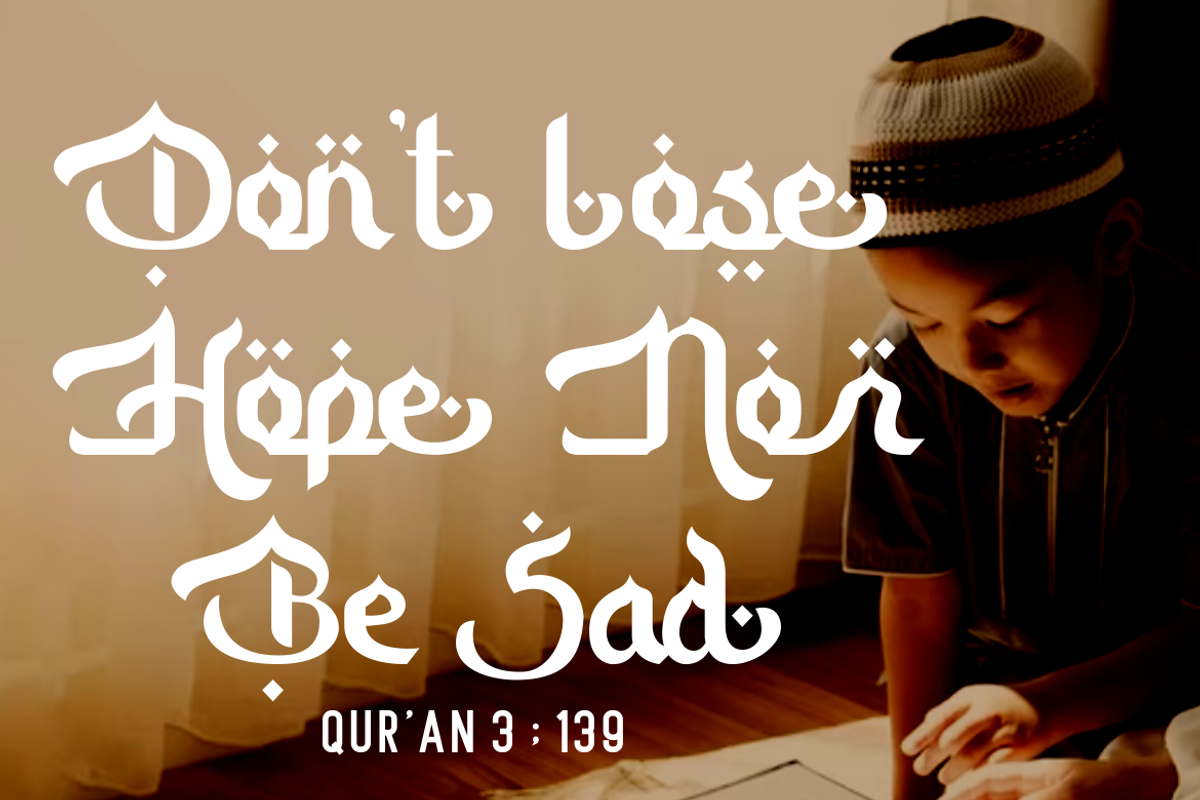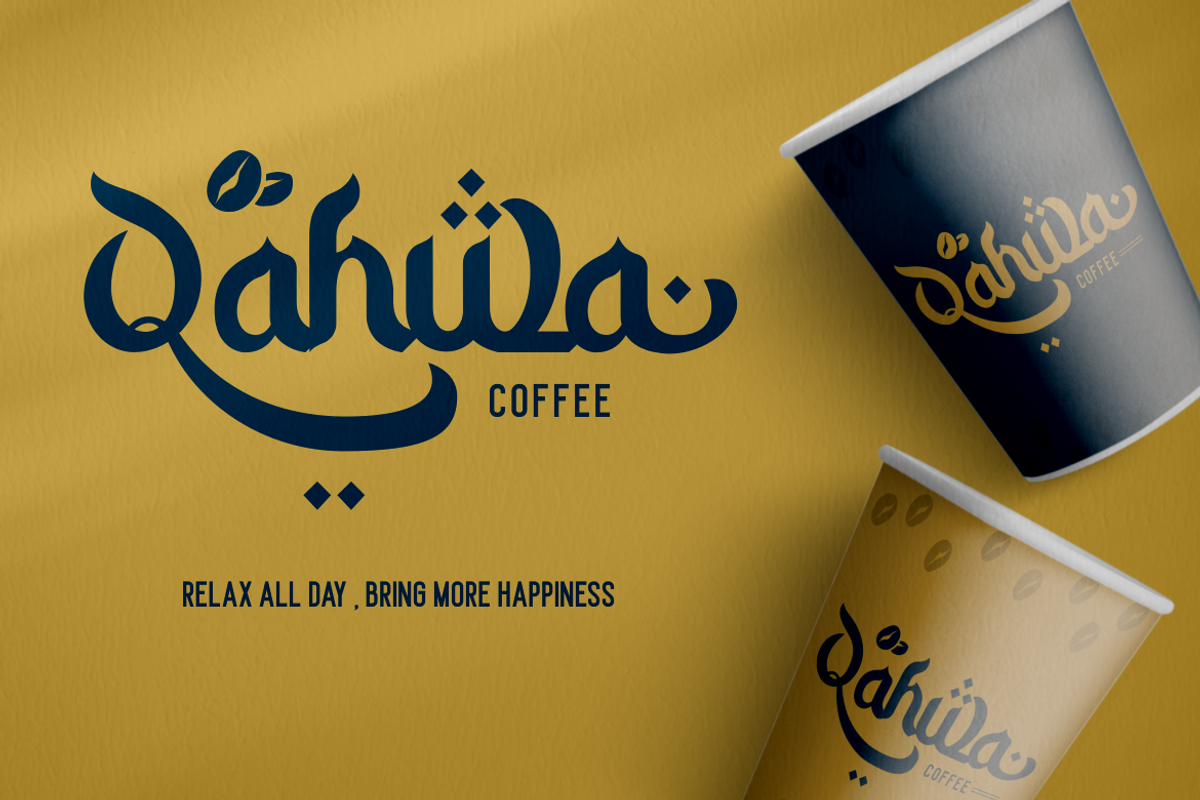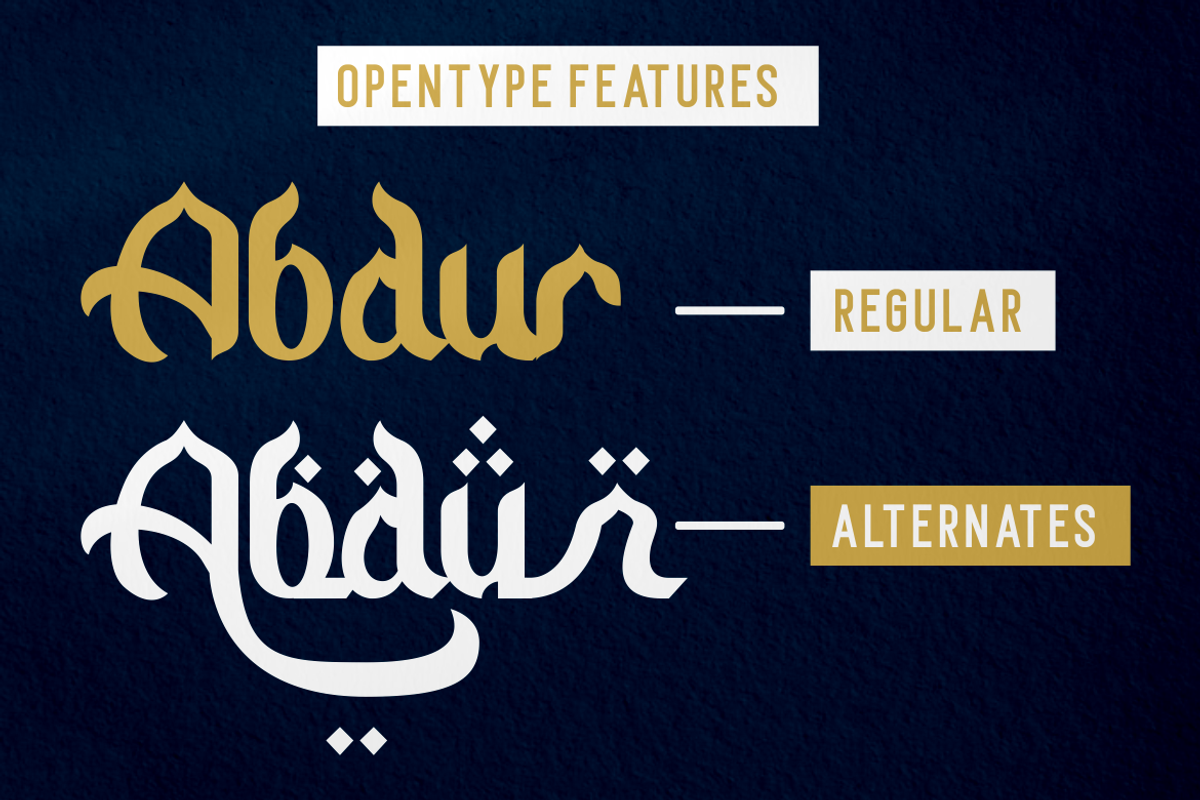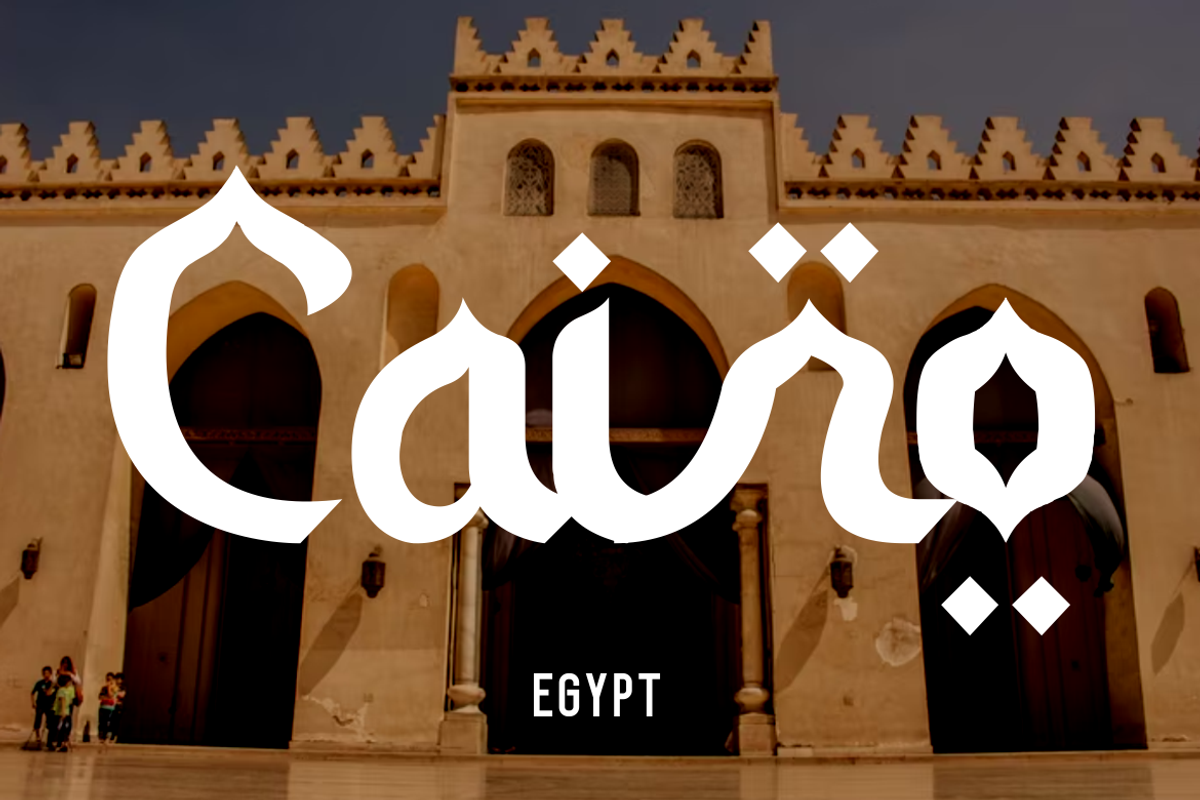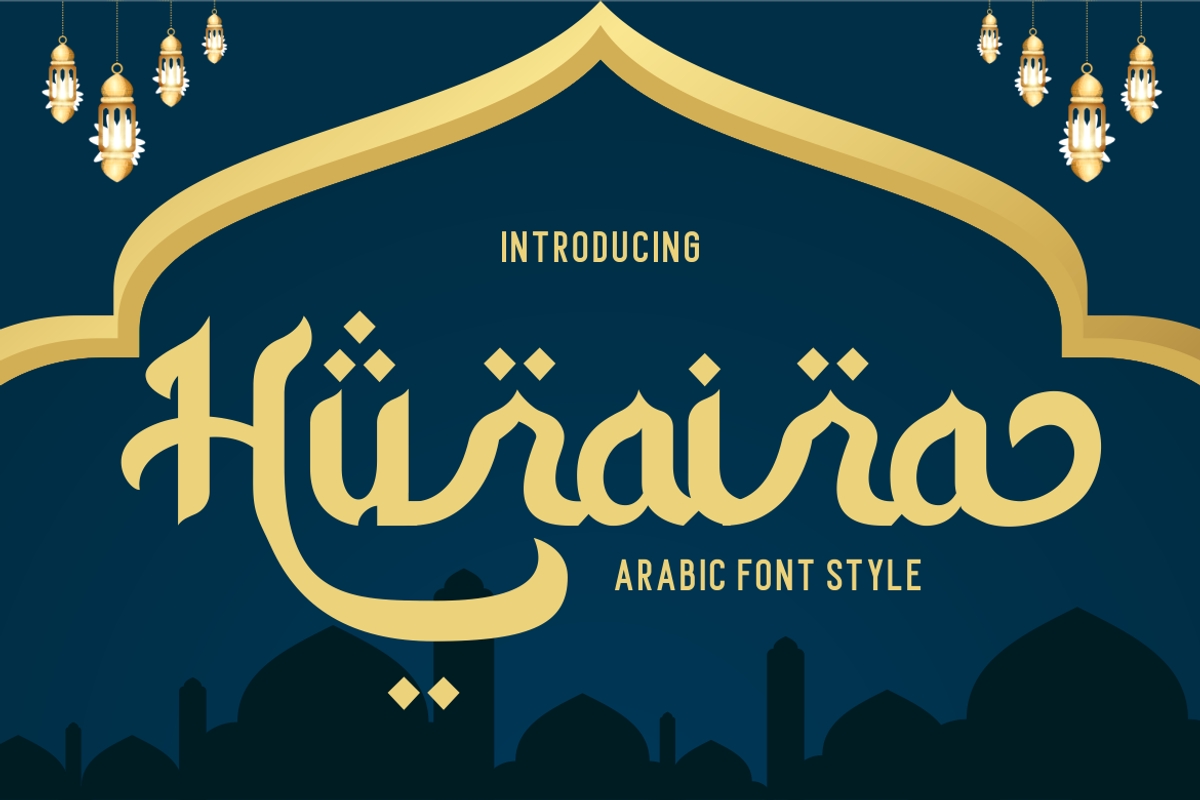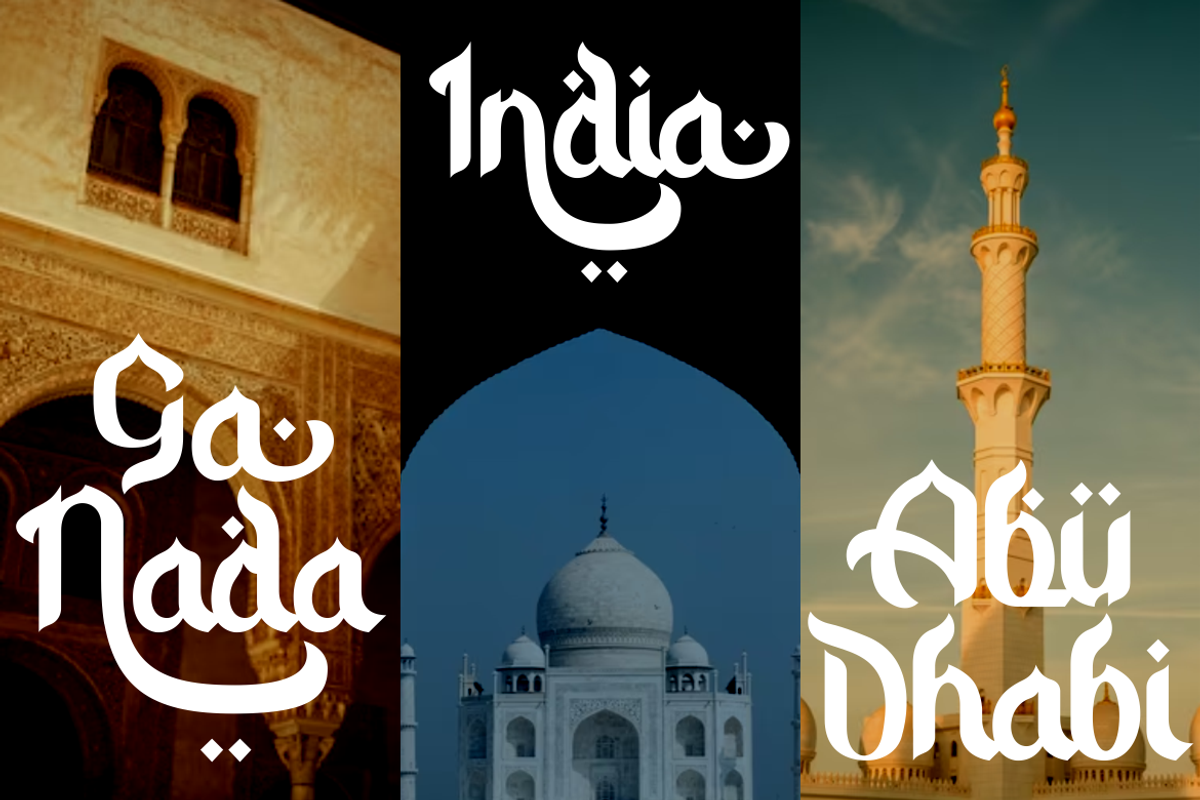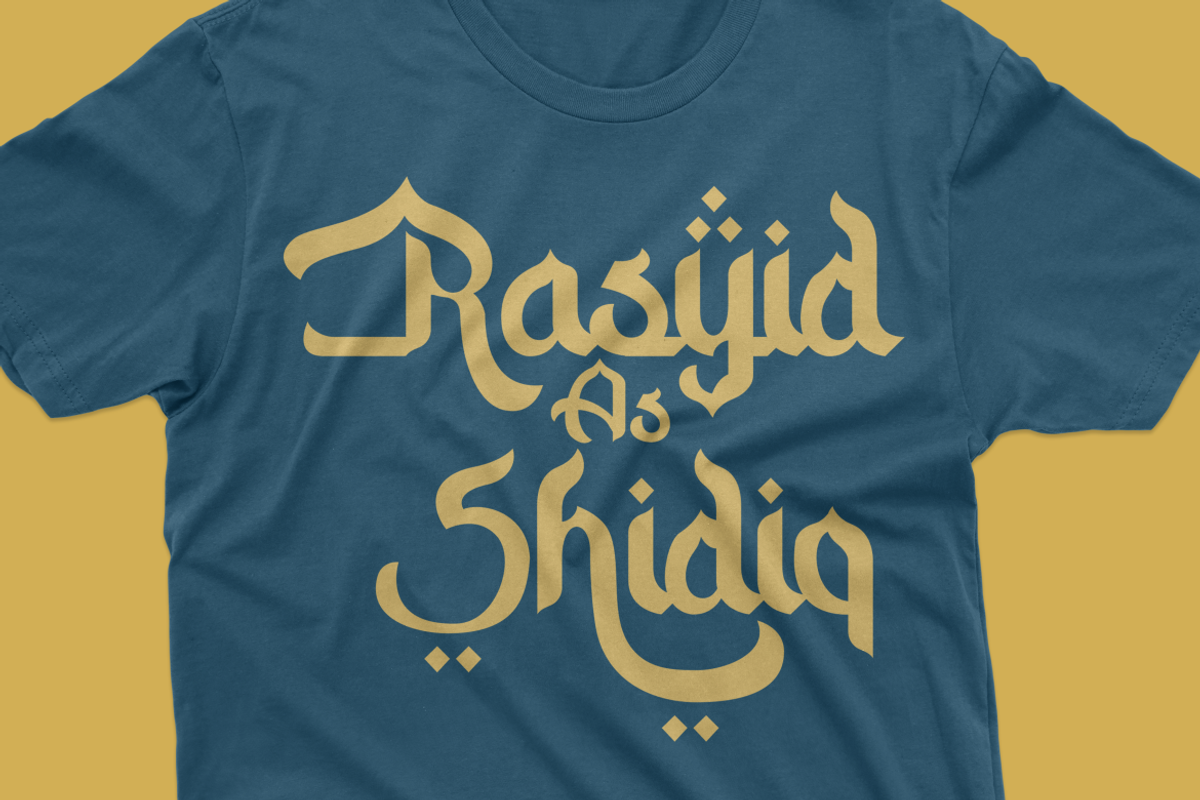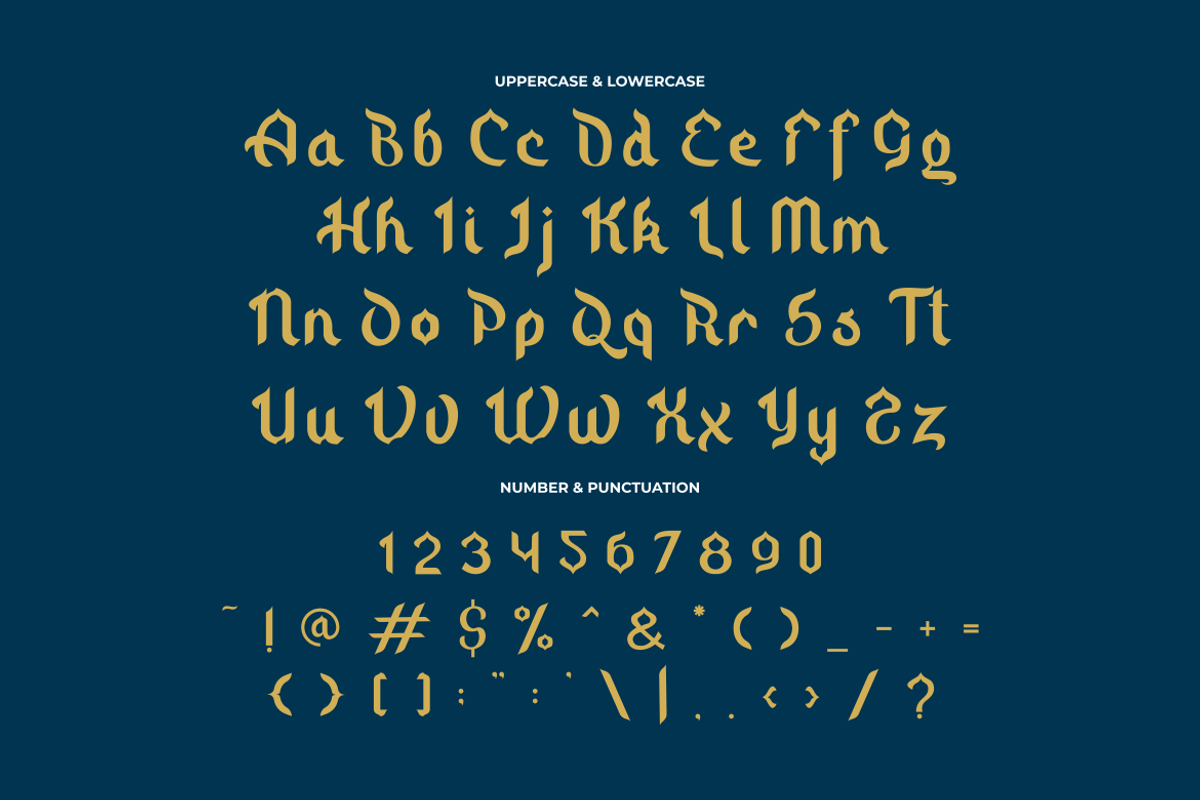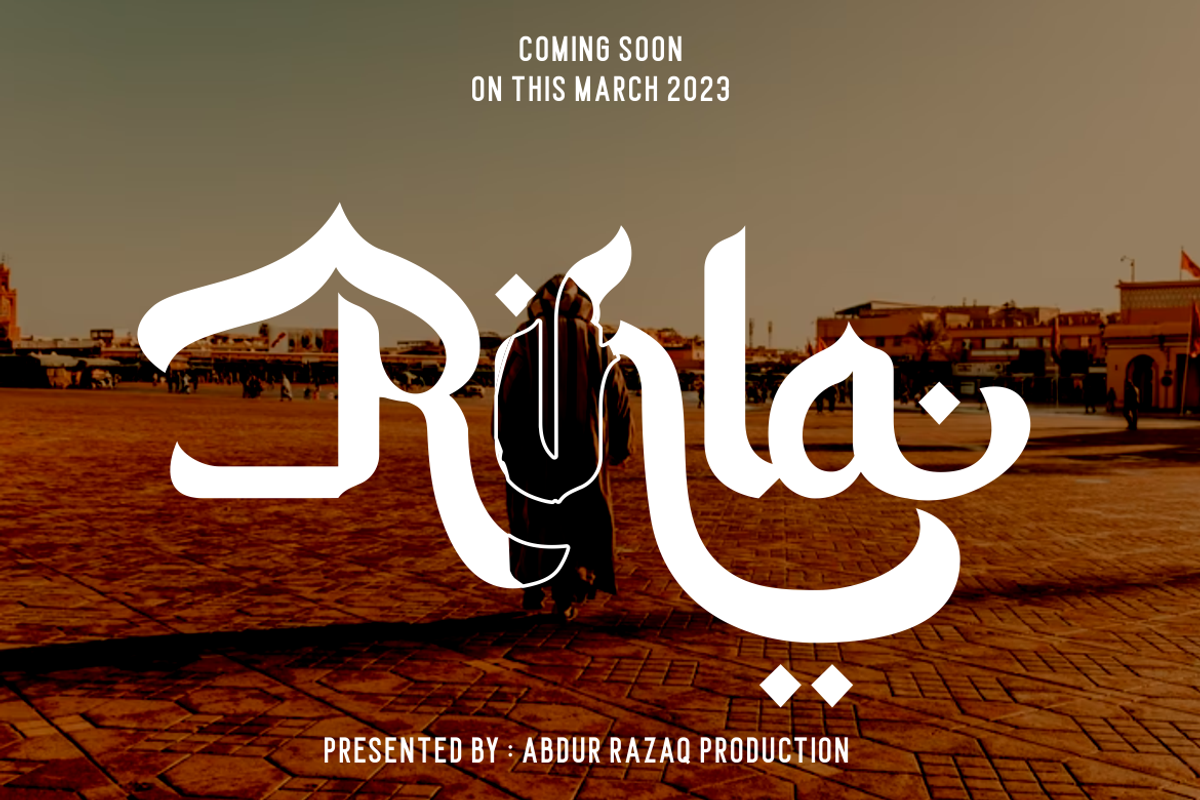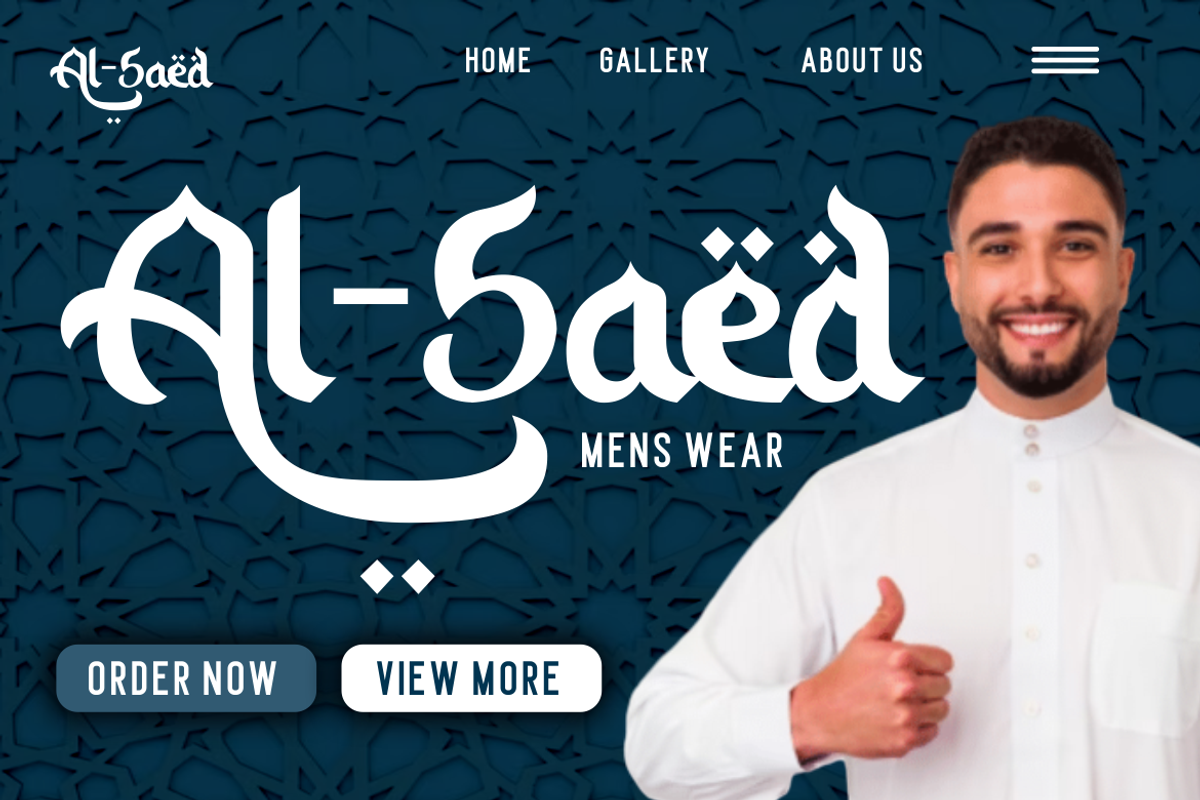
Huraira - Arabic Font
Introducing Huraira - Arabic Font, a captivating digital typeface that beautifully captures the essence of Arabic calligraphy. With a design that closely resembles traditional Arabic letters, this font features the intricate inclusion of dots on select characters, mirroring the visual elegance of classic Arabic writing. Huraira brings an air of authenticity and cultural richness to your designs, making it a versatile and impactful choice across a spectrum of design applications. From crafting logos and establishing a strong brand identity to designing eye-catching posters, product packaging, promotional materials, titles, greeting cards, and invitations, Huraira seamlessly blends the timeless charm of Arabic script with modern design sensibilities.
Huraira is more than just a font – it's a harmonious marriage of tradition and innovation. The thoughtful incorporation of alternative characters in various letters adds an extra layer of artistic expression, allowing you to tailor the font to your unique design vision. Whether you're creating a visually captivating logo or curating an elegant invitation, Huraira's versatility ensures that your designs will radiate a distinctive blend of heritage and contemporary aesthetics.
Unlock a world of creative possibilities with Huraira - Arabic Font. Its meticulous attention to detail, from the delicate dots to the alternative characters, guarantees that your designs will stand out with a touch of cultural sophistication. Elevate your projects, infusing them with the rich legacy of Arabic calligraphy, and watch as Huraira breathes new life into your logos, branding materials, posters, and various design endeavors.